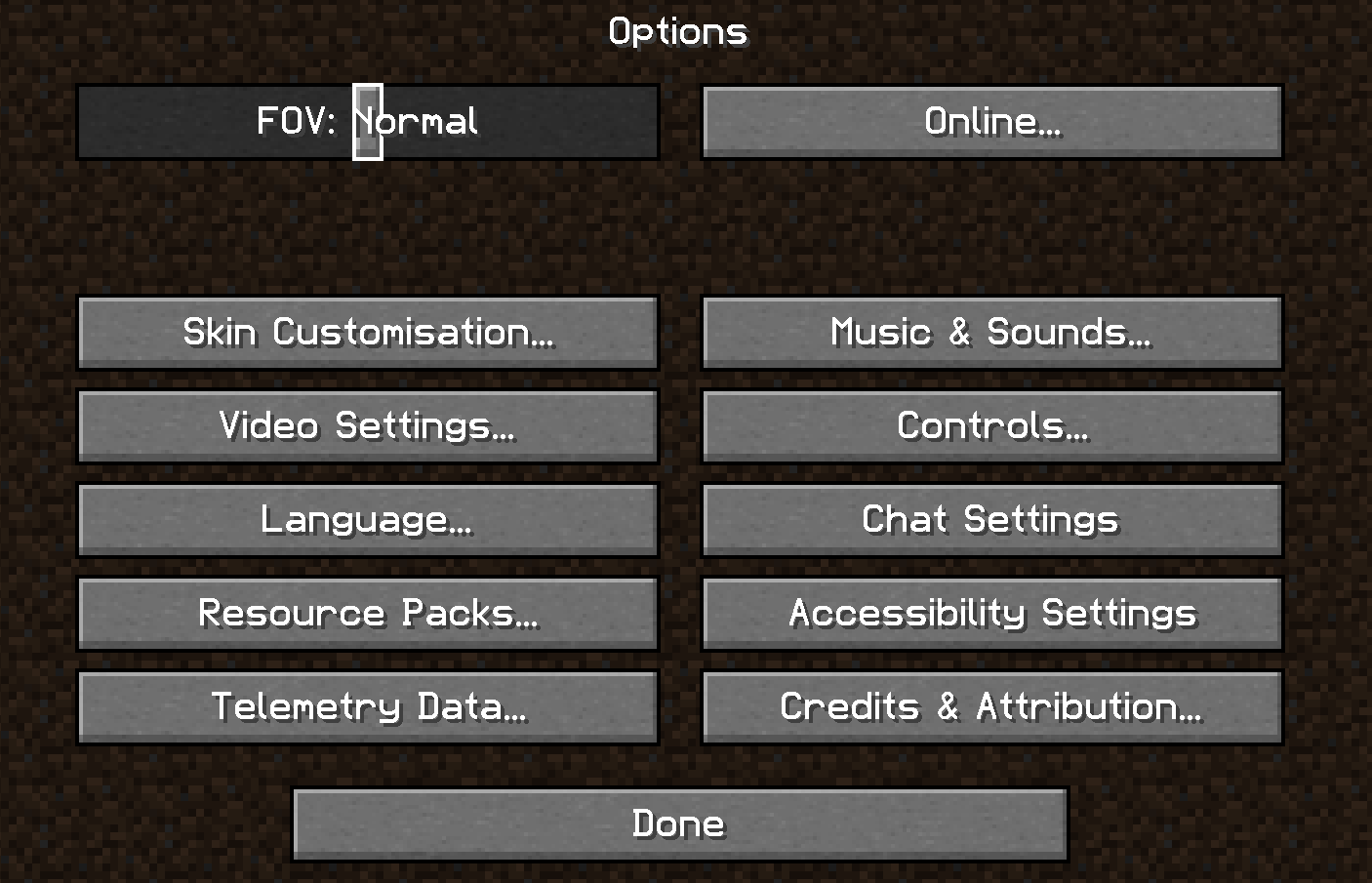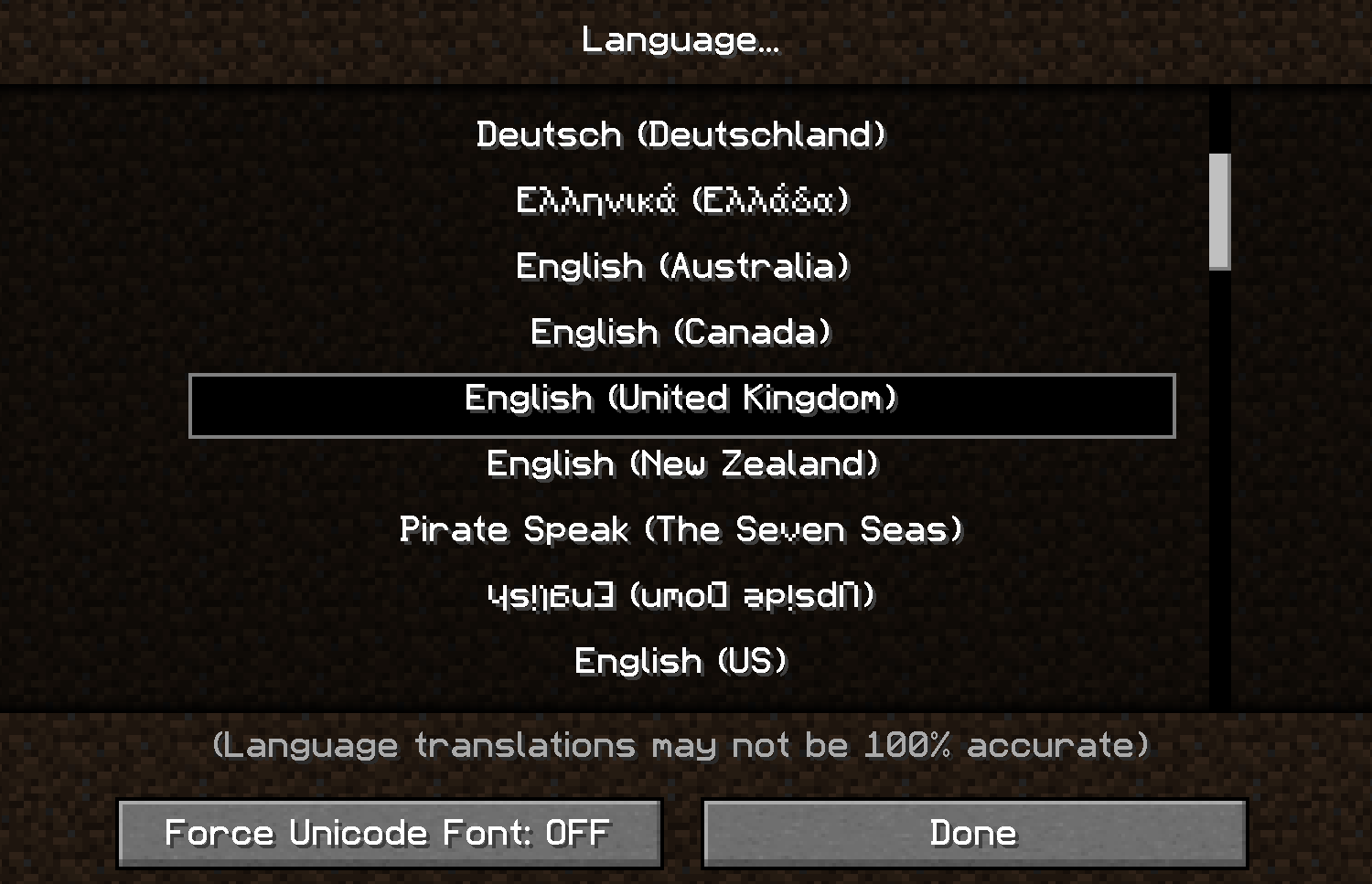
Better Font – a hand-drawn resource pack that smooths and rounds Minecraft's text, making it cleaner and more readable in-game. You can get a better look than before.